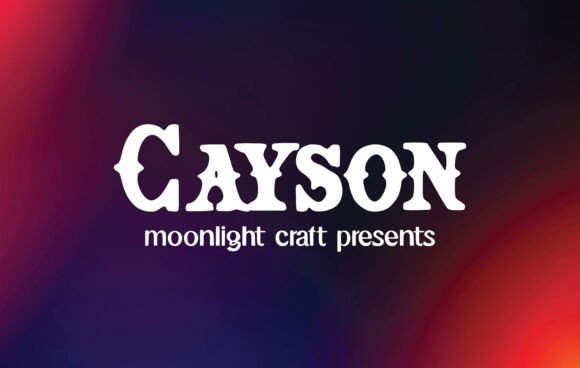
Cayson: Elevating Design with a Timeless Slab Serif Font
In the ever-evolving world of design, typography plays a crucial role in shaping visual communication. Whether it's for branding, marketing, or creative content, the right font can make all the difference. Enter Cayson, a stunning slab serif font that has been turning heads and transforming projects across industries. With its bold character and refined aesthetics, Cayson offers a perfect blend of modernity and tradition, making it an ideal choice for professionals who want their designs to stand out.
What Makes Cayson Unique?
Cayson is more than just another font; it’s a statement. As a slab serif typeface, it combines the classic elegance of serifs with the clean, sturdy lines of slabs. This gives it a distinctive look that is both professional and approachable. The font features well-balanced letterforms, generous spacing, and subtle detailing that enhances readability without compromising on style.
One of Cayson’s most notable characteristics is its versatility. It works equally well in large-scale headlines as it does in body text when used with care. Its thick strokes and strong presence make it highly legible from a distance, which is particularly useful for logos and signage. At the same time, the font maintains a level of sophistication that allows it to be incorporated into high-end branding materials and editorial layouts.
The Role of Typography in Modern Branding
Typography isn't just about choosing a pretty font—it's about conveying personality, values, and professionalism. In today’s competitive market, businesses are increasingly aware of how fonts influence perception. A bold slab serif like Cayson can communicate strength, trustworthiness, and creativity simultaneously. That makes it especially valuable for startups, entrepreneurs, and brands looking to establish a memorable identity.
Slab serif fonts have made a significant comeback in recent years. Once associated primarily with print media and vintage aesthetics, they now dominate digital spaces—from website headers to mobile app interfaces. This resurgence is driven by a growing appreciation for fonts that offer both visual impact and clarity. Cayson fits seamlessly into this trend, offering designers a powerful tool that aligns with current typographic sensibilities while maintaining a timeless appeal.
Why Professionals Are Choosing Cayson
- High Contrast and Bold Strokes: These elements make Cayson visually striking, helping to capture attention in crowded digital environments.
- Modern Adaptability: While rooted in traditional typography, Cayson is optimized for digital use, ensuring it looks sharp on screens of all sizes.
- Customization Options: Many versions of Cayson include multiple weights and styles, allowing for nuanced design applications tailored to specific brand needs.
Designers and marketers are drawn to Cayson because it meets the evolving expectations of audiences who crave authenticity and visual richness. In an age where minimalism often reigns supreme, Cayson provides a refreshing alternative—offering weight and character without overwhelming the viewer.
Trends Driving the Popularity of Cayson
The rise of Cayson can be attributed to several broader trends reshaping the design industry:
1. Demand for Authentic Visual Identities
Consumers today are not only looking for products and services but also for brands that feel real and relatable. Fonts like Cayson help create that sense of authenticity. They bring a tactile, almost handcrafted quality to digital designs, bridging the gap between analog charm and modern functionality.
2. Growth of Remote Work and Digital Presence
With the shift toward remote work and digital-first interactions, the need for strong, readable, and aesthetically pleasing fonts has never been greater. Cayson is a favorite among freelancers and entrepreneurs because it ensures that their digital content—be it presentations, social media posts, or email newsletters—projects confidence and clarity.
3. Rise of Minimalist and Maximalist Contrasts
While minimalist design remains popular, there's a parallel movement embracing maximalist aesthetics—think bold colors, textures, and yes, impactful typography. Cayson sits comfortably at the intersection of these two movements. It can anchor a minimalist layout with authority or serve as a vibrant centerpiece in a maximalist design.
Practical Applications of Cayson
Cayson’s adaptability makes it suitable for a wide range of applications. Here are some practical examples of how it can enhance your work:
Logo Design
A logo is the face of a brand. Using Cayson for a logo adds a layer of gravitas and memorability. For example, a boutique fitness studio might choose Cayson for its logo to project strength and discipline. Similarly, a food and beverage company could use it to evoke warmth and reliability.
Branding Materials
From business cards to packaging, Cayson brings consistency and cohesiveness to branding efforts. Its structured yet expressive nature helps maintain a professional tone while still feeling personal and inviting. Marketers appreciate how it elevates brand messaging without needing excessive graphic elements.
Quotes and Social Media Content
Quotes are a staple of content marketing and influencer culture. Cayson’s bold structure and elegant curves make it perfect for highlighting inspirational quotes or key messages on platforms like Instagram, Pinterest, or LinkedIn. It commands attention and encourages engagement, which is essential for any content-driven strategy.
Editorial and Print Layouts
Though often overlooked for print, slab serif fonts like Cayson can add a touch of class to magazines, brochures, and even books. When used in titles or pull-quotes, it creates a focal point that draws readers in and enhances the overall reading experience.
How Cayson Fits Into Creative Workflows
As the creative landscape becomes more collaborative and cross-platform, the ability to use consistent typography across mediums is vital. Cayson supports this by being compatible with major design software such as Adobe Illustrator, Photoshop, and InDesign. Additionally, web developers can easily integrate Cayson via Google Fonts or other font hosting services, ensuring seamless implementation across digital channels.
For teams working remotely, having access to a reliable and stylish font like Cayson streamlines the design process. It eliminates the need to source multiple fonts for different purposes and allows for quicker iterations, especially when building cohesive visual systems from scratch.
Key Considerations When Using Cayson
- Balance with Other Elements: Cayson’s boldness means it should be paired carefully with background imagery, color schemes, and other typography. Too much contrast can overwhelm the viewer, so subtlety is key.
- Consider Readability: While Cayson is highly legible, using it for long paragraphs may not always be advisable. Reserve it for headings, logos, or short bursts of text to maintain visual harmony.
- Match the Brand Voice: Cayson suits brands with a confident, classic, or slightly edgy tone. If your brand is more whimsical or futuristic, you might consider blending it with a sans-serif companion font.
Connecting Cayson to Larger Industry Developments
Cayson doesn’t exist in a vacuum—it reflects and responds to larger shifts in the design and marketing industries. One such shift is the increasing importance of typefaces that support emotional storytelling. Brands are no longer just selling products; they’re curating experiences and narratives. Cayson’s strong character and expressive form help tell those stories effectively.
Another development is the move toward inclusive and accessible design. Fonts must be readable across devices and for diverse audiences. Cayson, with its clear structure and generous spacing, aligns well with accessibility standards, making it a responsible choice for modern creators concerned with inclusivity.
Moreover, the integration of AI and automation in design tools has raised the bar for typography. Designers now expect fonts to perform across automated workflows and dynamic content environments. Cayson meets these demands by being scalable, responsive, and adaptable to various formats and technologies.
Why Cayson Matters Now
Today’s audiences are bombarded with information. To cut through the noise, brands and creatives need typography that speaks clearly and confidently. Cayson delivers exactly that. Its popularity among professionals signals a broader desire for fonts that combine function with flair, and that speak to both the eye and the mind.
Additionally, Cayson resonates with the current emphasis on craftsmanship and intentionality in design. In a world of templated websites and cookie-cutter graphics, a font like Cayson allows for originality and distinction. It empowers designers to build something unique that feels both intentional and impactful.
Real-World Examples of Cayson in Action
Several companies and creatives have already embraced Cayson for their projects. For instance, a lifestyle brand focusing on wellness and sustainability used Cayson in their logo and tagline to reflect a grounded, trustworthy aesthetic. Meanwhile, a tech startup leveraged Cayson for their landing page headlines to balance innovation with dependability.
In the world of content creation, influencers and bloggers frequently use Cayson to format quotes or key points within their posts. Its bold appearance ensures that important messages are highlighted and remembered, contributing to higher engagement and shareability.
Conclusion
Cayson is more than just a beautiful slab serif font—it’s a strategic choice for anyone looking to elevate their visual communication. Its design aligns with contemporary trends in branding, digital content, and accessibility, while still retaining the timeless qualities that make typography effective. By incorporating Cayson into your creative toolkit, you're not just selecting a font; you're investing in a design element that can shape how your audience perceives your message.
Whether you're an entrepreneur launching a new product, a marketer crafting a compelling campaign, or a designer pushing creative boundaries, Cayson offers the kind of typographic power that can transform your work. As the demand for authentic and impactful design continues to grow, fonts like Cayson will remain at the forefront of the conversation.